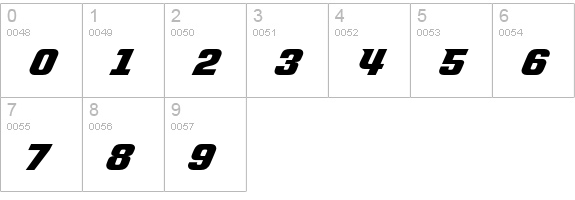
Introducing Spacelord Two font, a futuristic and stylish typeface that exudes a sense of space-age sophistication. With its sleek lines and modern design, this font is perfect for projects that require a touch of sci-fi flair. Whether you're creating a poster for a space-themed event or designing a cutting-edge website, Spacelord Two font will make your text stand out. The best part? Spacelord Two font is available for free download at FontsMarket.com. That's right, you can add this unique font to your collection without spending a dime. Don't miss out on the opportunity to enhance your designs with this eye-catching and versatile typeface. Download Spacelord Two font today and take your projects to new heights!